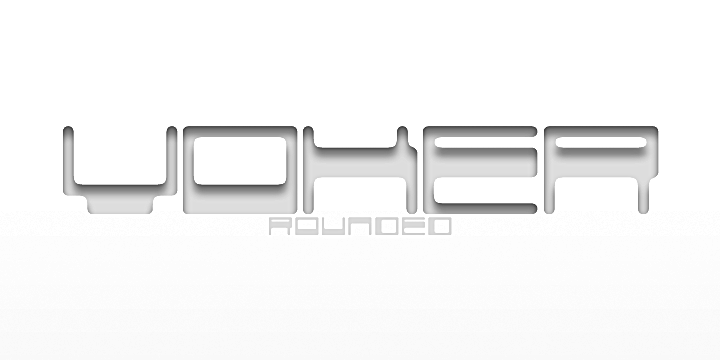
VOKER
Voker is a display and retro font family. This typeface has two styles and was published by Qbotype.
What was the inspiration for designing the font?
My inspiration is experimental music
Usage recommendations: could be: Name Djs, conceptual apparatus, modern machines, computers, Hybrid etc.
Displaying the beauty and characteristics of the Voker font family.
Highlighting the Voker font family.
What was the inspiration for designing the font? My inspiration is experimental music
Usage recommendations: could be: Name Djs, conceptual apparatus, modern machines, computers, Hybrid etc.